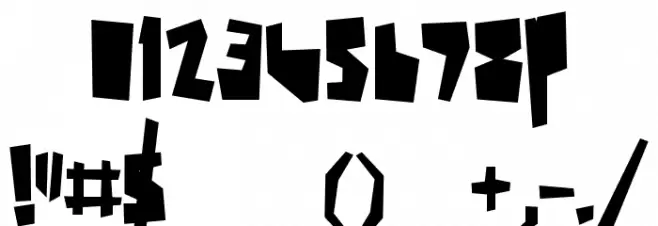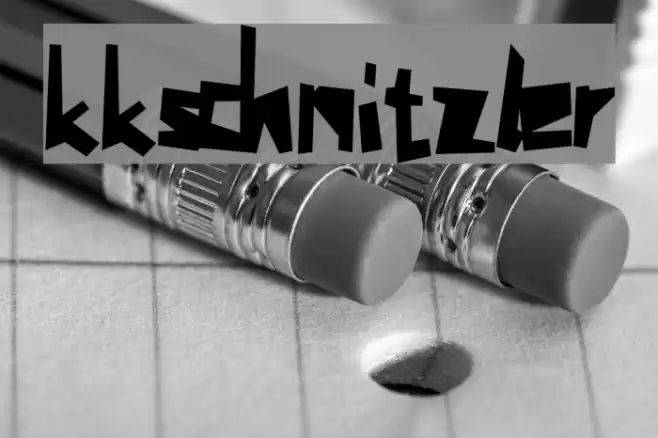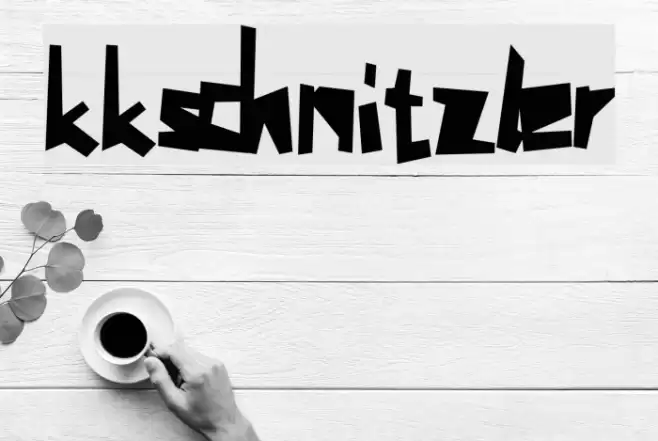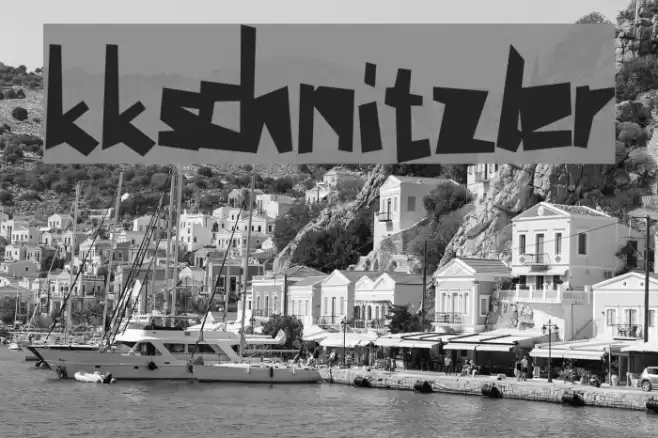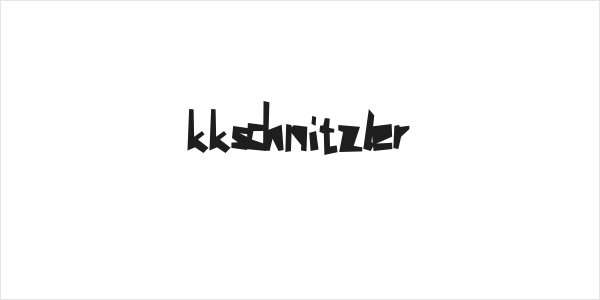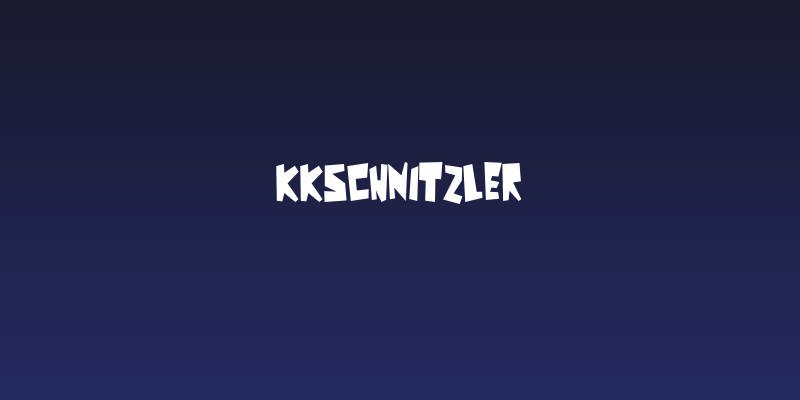
kkschnitzler Font
kkschnitzler Description
This font features a bold, angular design with a distinctly geometric and edgy appearance. The characters are crafted with sharp, irregular edges, giving them a dynamic and unconventional look. The uppercase and lowercase letters maintain a consistent style, with a playful yet aggressive aesthetic. Numbers and special characters follow the same design principles, ensuring uniformity across the typeface. The font's unique style makes it ideal for projects that require a strong visual impact, such as posters, album covers, or branding for edgy and modern brands. Its boldness and distinctiveness make it stand out, while the irregular shapes add a sense of movement and energy.
| Proposed Projects | Ideal for posters, album covers, branding for modern and edgy brands. |